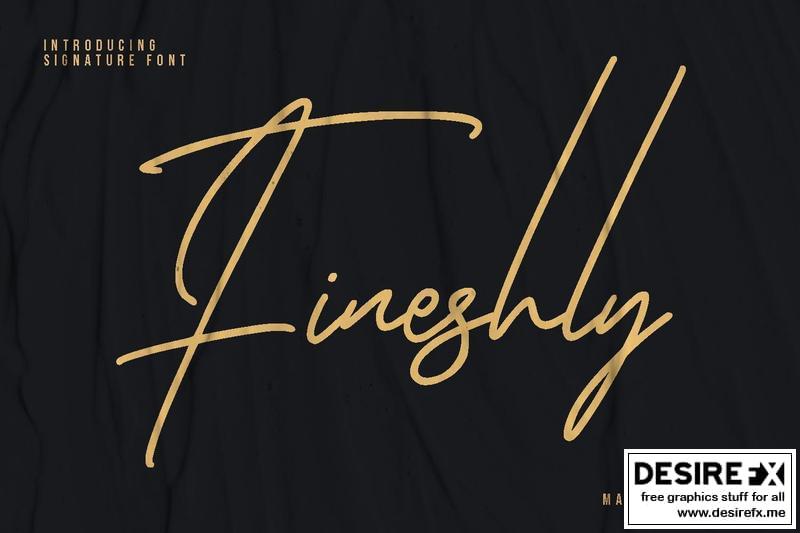
Fineshly Signature Font UR7YBJE
Fineshly is a casual script font. With mono-line stroke, fun character with a bit of ligatures and alternates. To give you an extra creative work. Fineshly font support multilingual more than 100+ language. This font is good for logo design, Social media, Movie Titles, Books Titles, a short text even a long text letter and good for your secondary text font with sans or serif. Make a stunning work with Fineshly font.